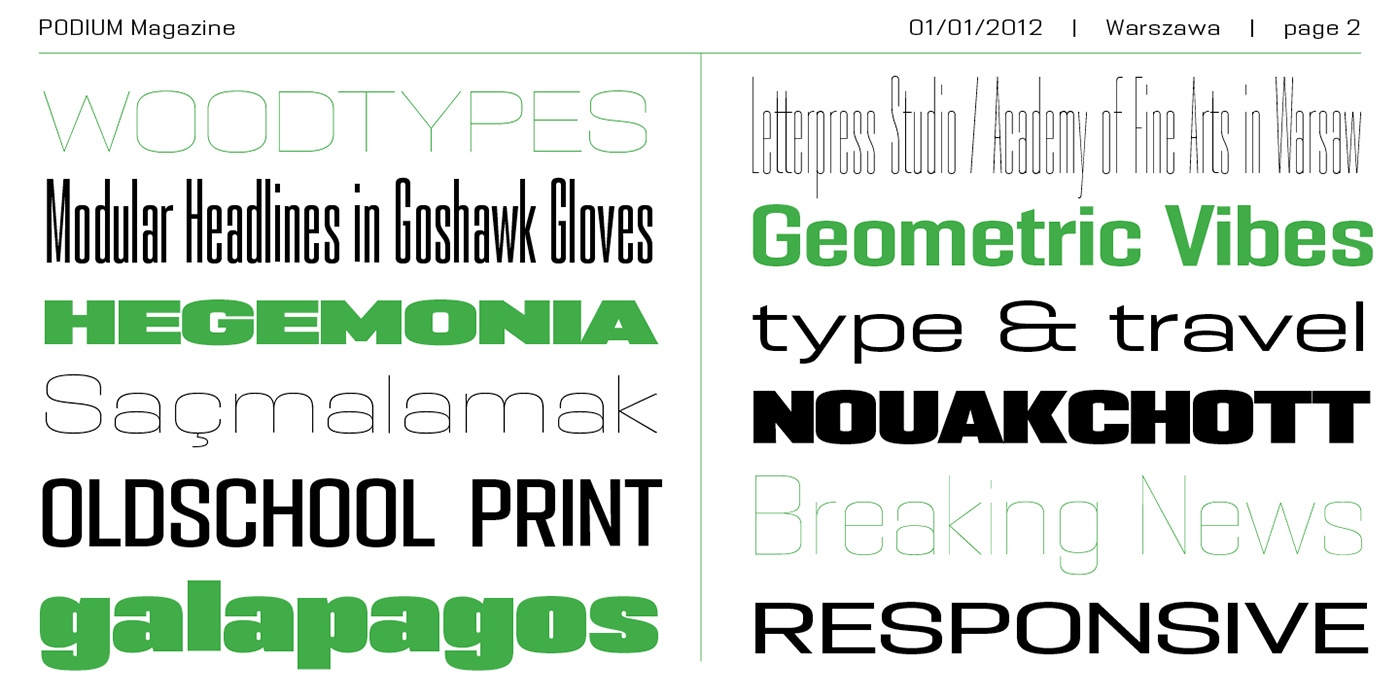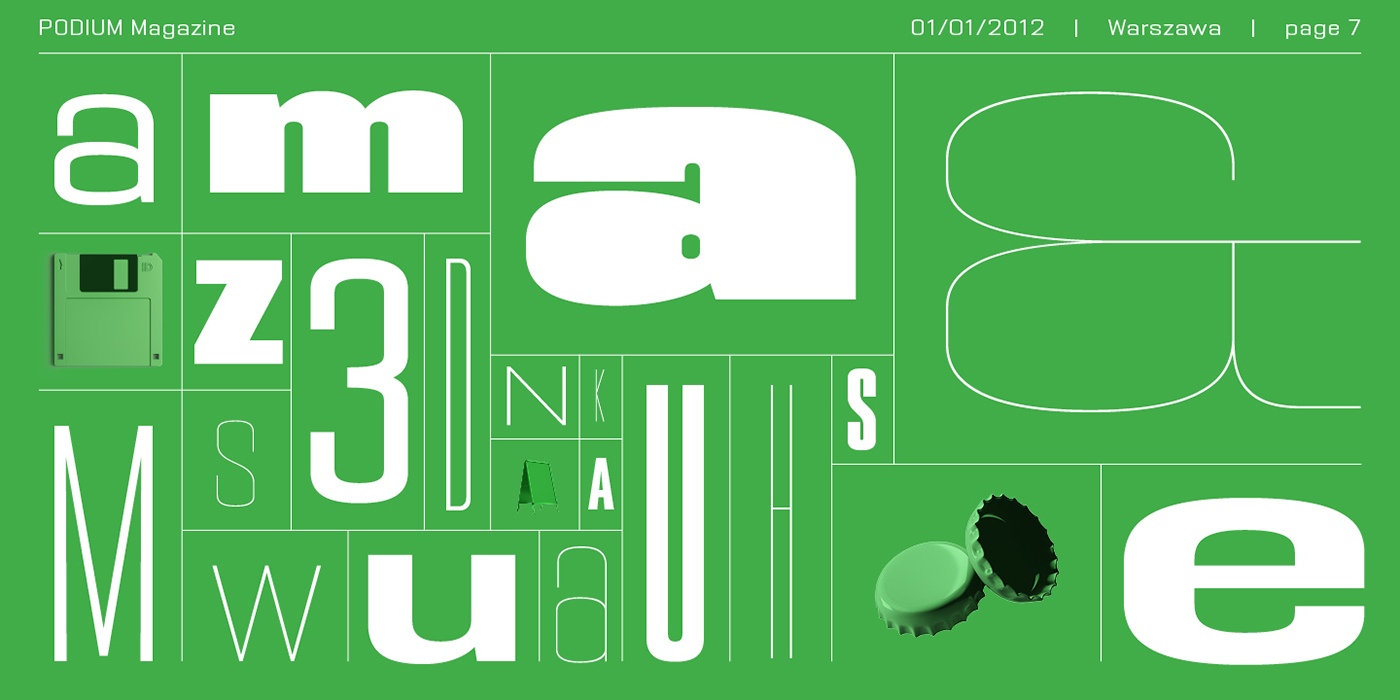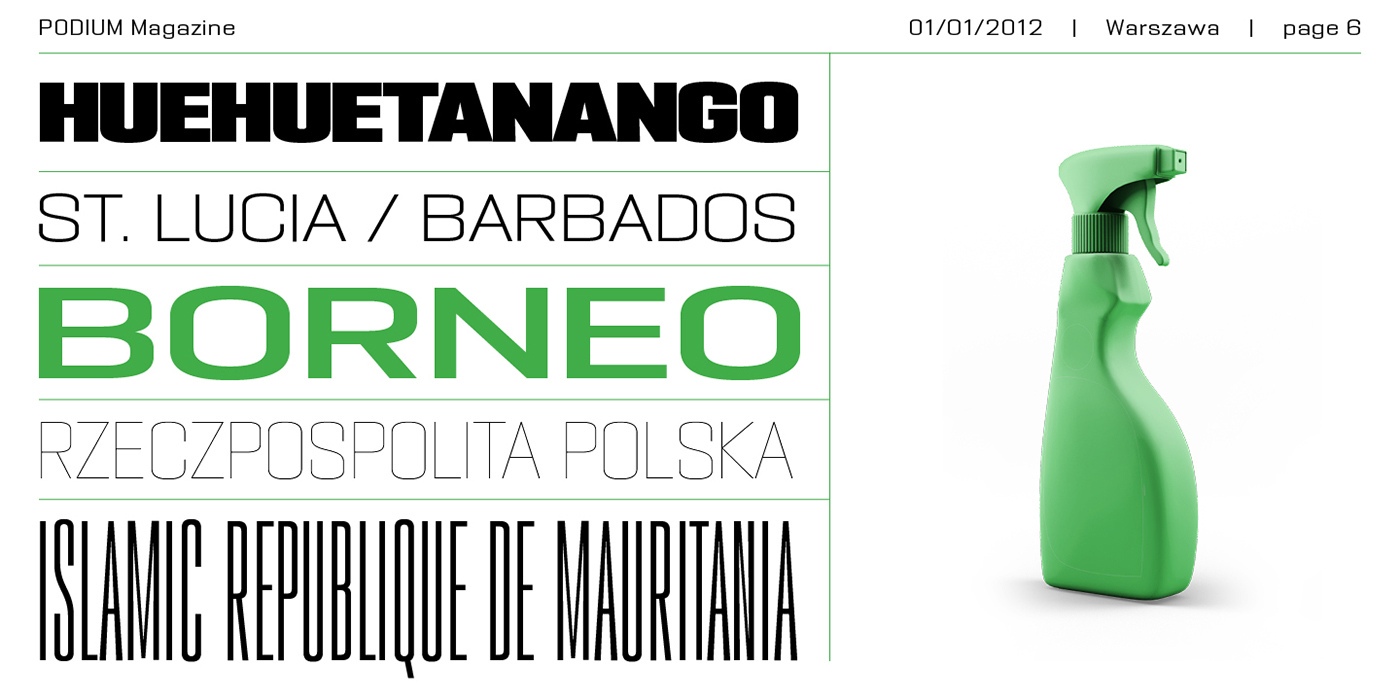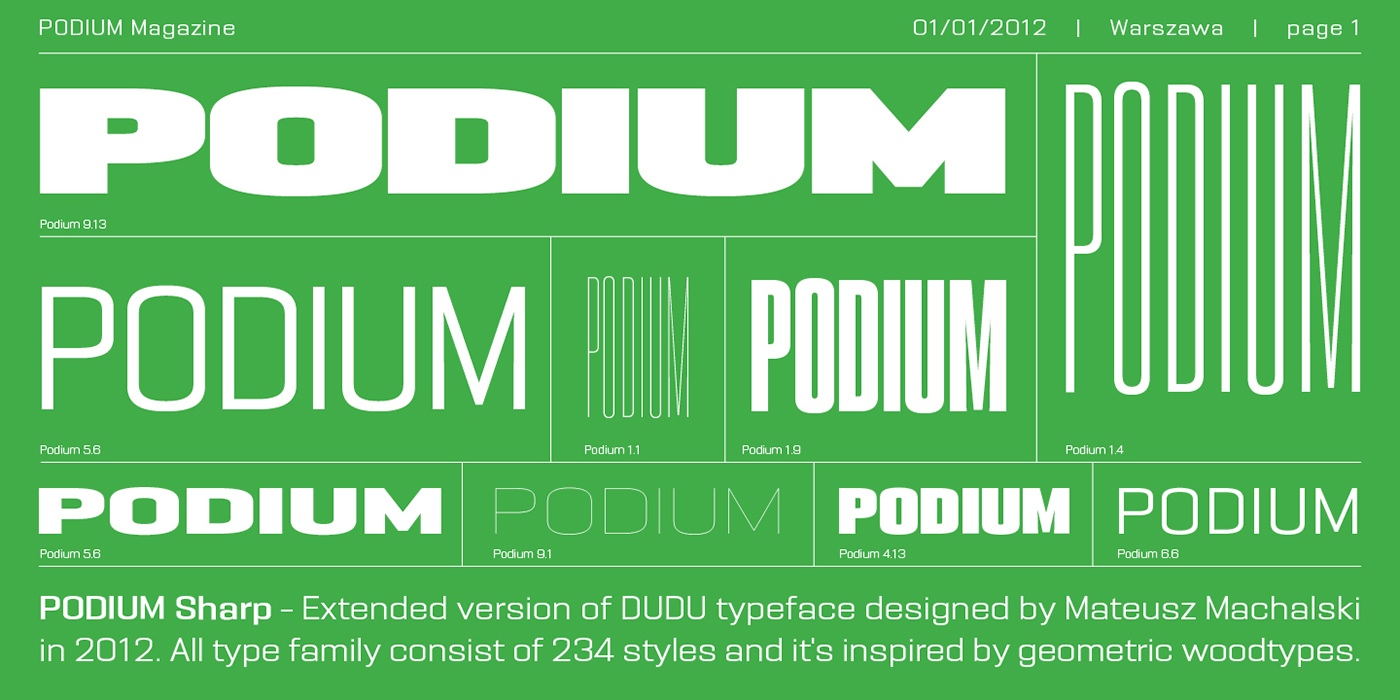
PODIUM Sharp Font
PODIUM Sharp Font is perfect for competitive sports branding, championship events, victory celebrations, athletic team logos, winning campaigns, performance-driven marketing, elite competition graphics, achievement-focused designs, winner announcements, and powerful motivational materials.
What makes PODIUM Sharp Font so exciting is its sharp precision that embodies the cutting edge of competitive excellence and championship performance. This commanding typeface captures the intensity of victory and the sharpness of elite achievement, creating typography that communicates winning mentality and uncompromising pursuit of excellence.
The PODIUM Sharp Font family includes light, regular, medium, bold, and black weights, complete with sharp design elements, competitive styling options, and victory-inspired features that provide designers with comprehensive tools for creating championship-quality typography that dominates competition.
The sharply crafted letterforms of PODIUM Sharp Font showcase competitive precision with championship character that creates instant recognition of excellence and winning performance. Each character displays meticulous attention to maintaining the sharp edge that defines competitive superiority while ensuring powerful readability and professional versatility. The font's precise construction and winning spacing contribute to its championship appearance and elite appeal.
Championship brands and competitive organizations consistently choose PODIUM Sharp Font for projects requiring winning presence and competitive excellence. The comprehensive character set includes uppercase and lowercase letters, numerals, extensive punctuation, international accents, and victory-inspired elements that provide complete support for competitive branding applications and championship design compositions.
The competitive excellence of PODIUM Sharp Font ensures exceptional performance across both traditional print and modern digital platforms. Whether developing championship brand identities, creating competitive marketing campaigns, or designing victory celebration materials, this remarkable typeface delivers consistent sharpness that resonates with audiences pursuing excellence and championship performance.